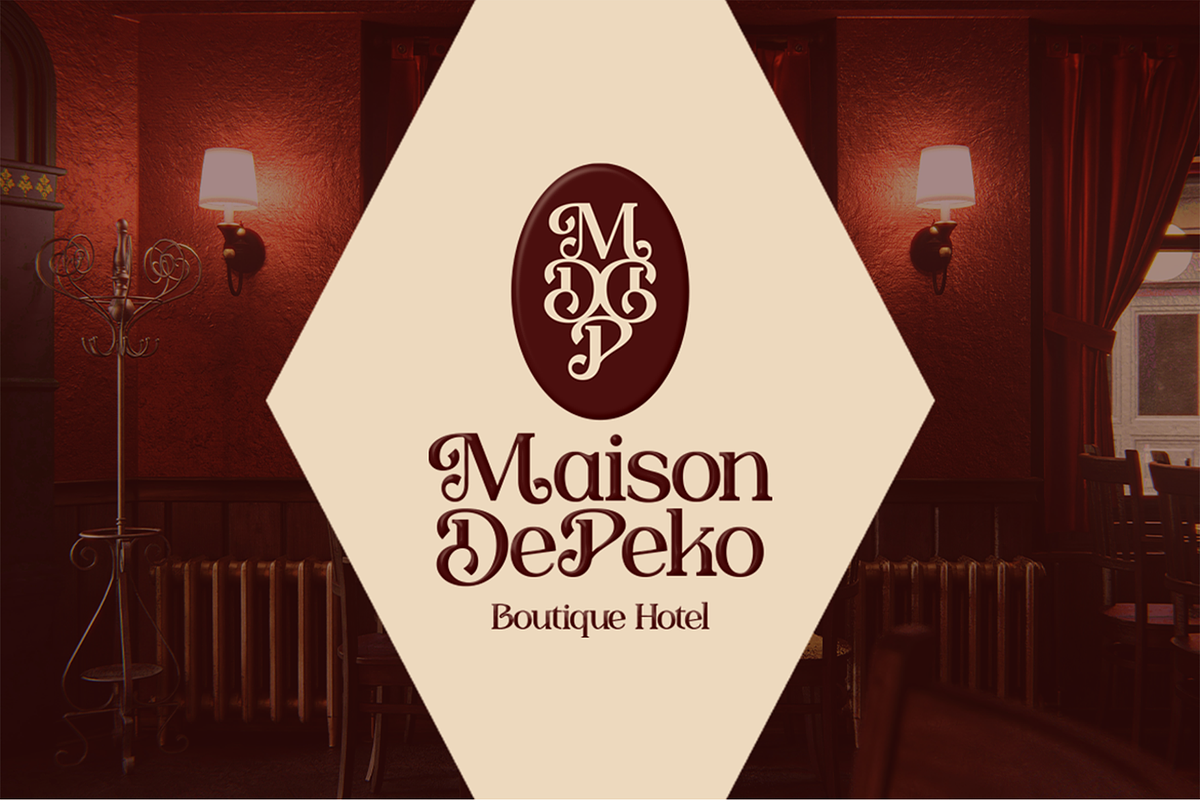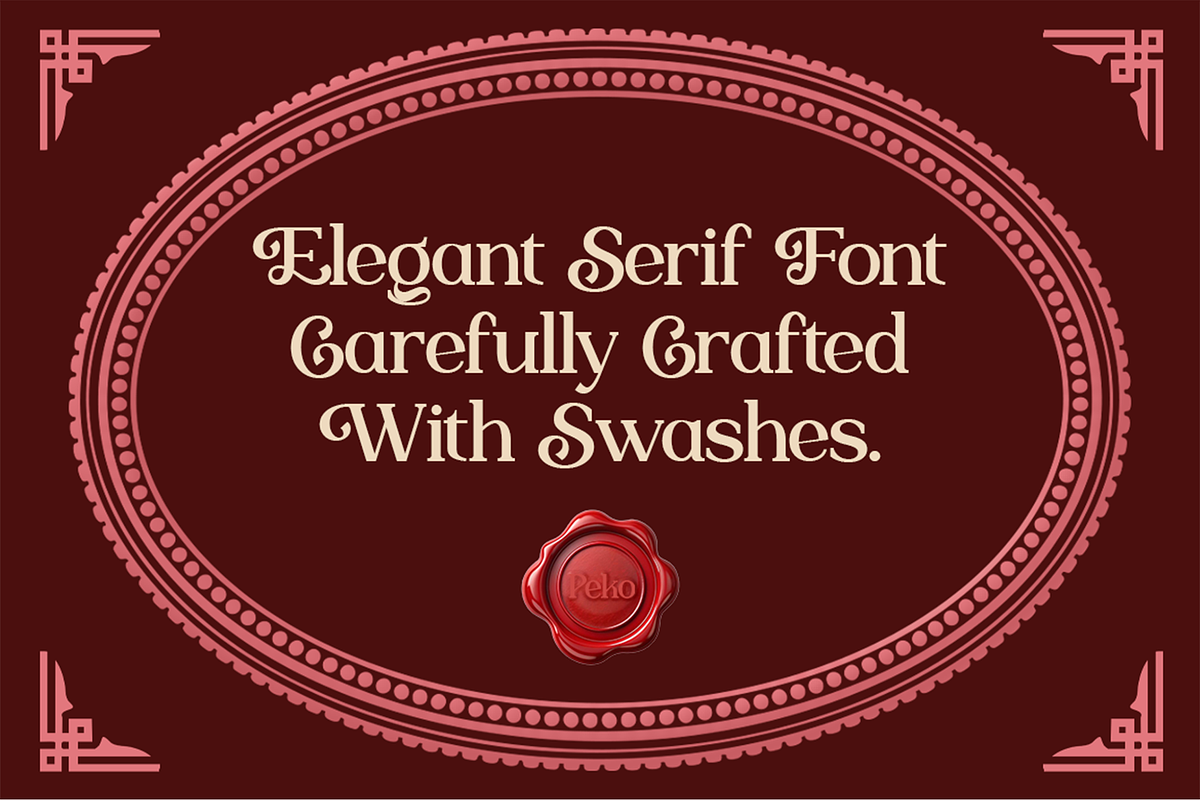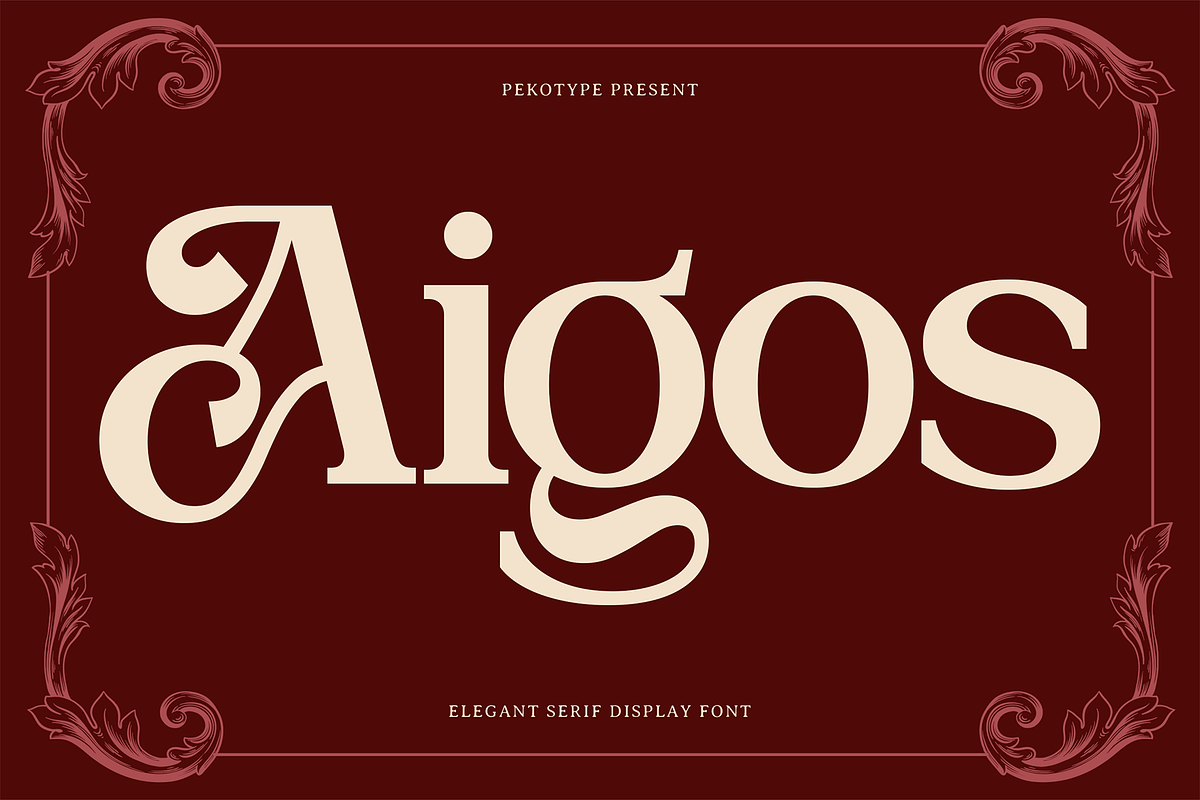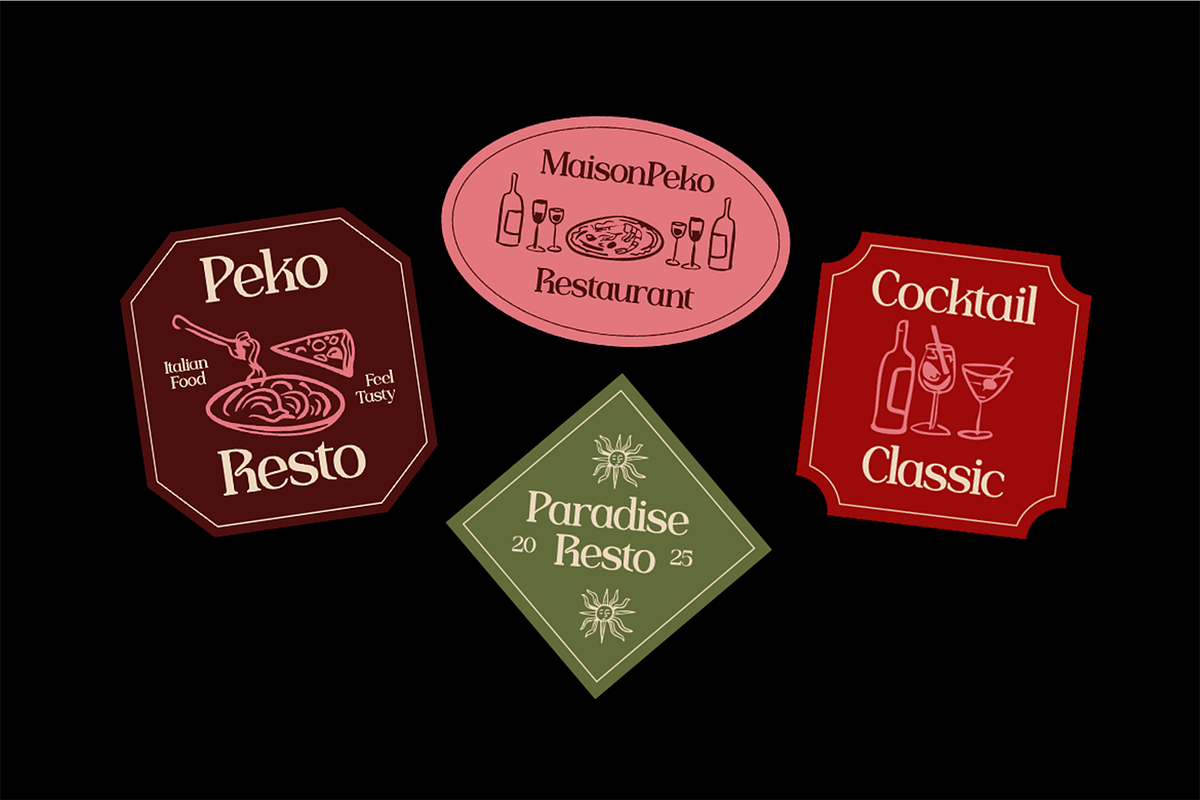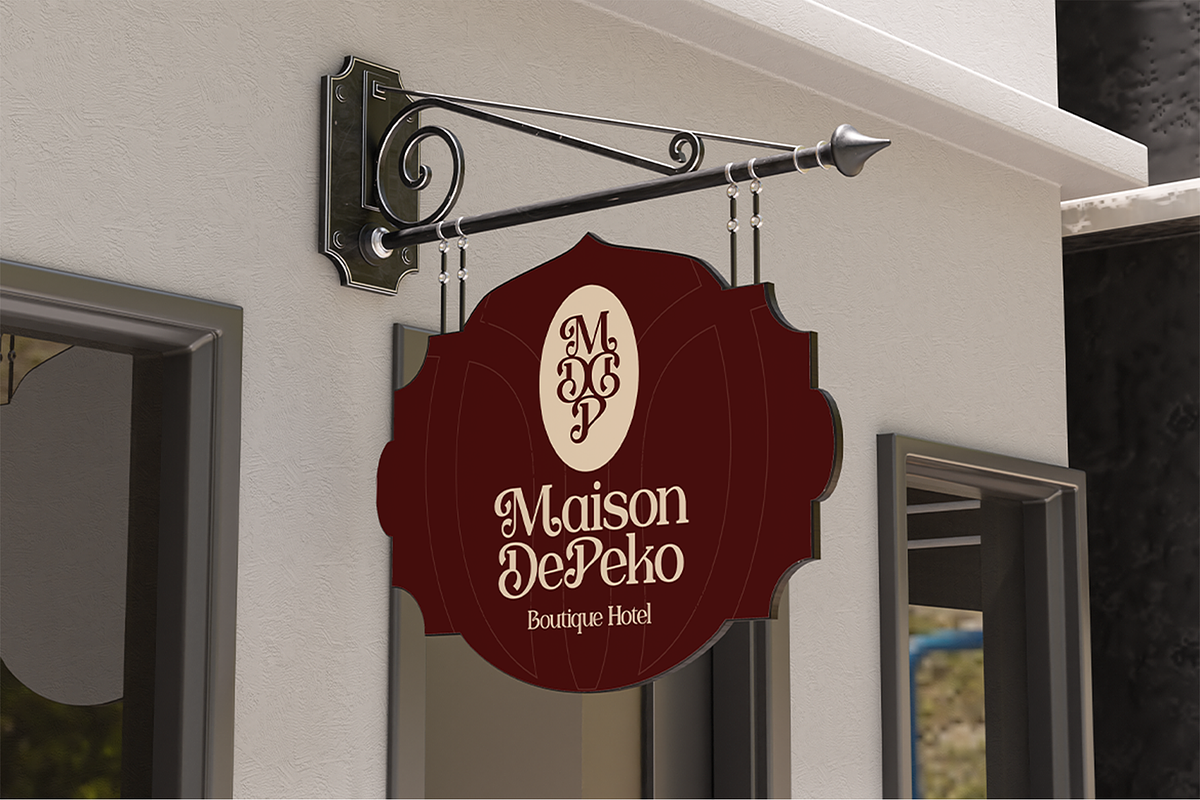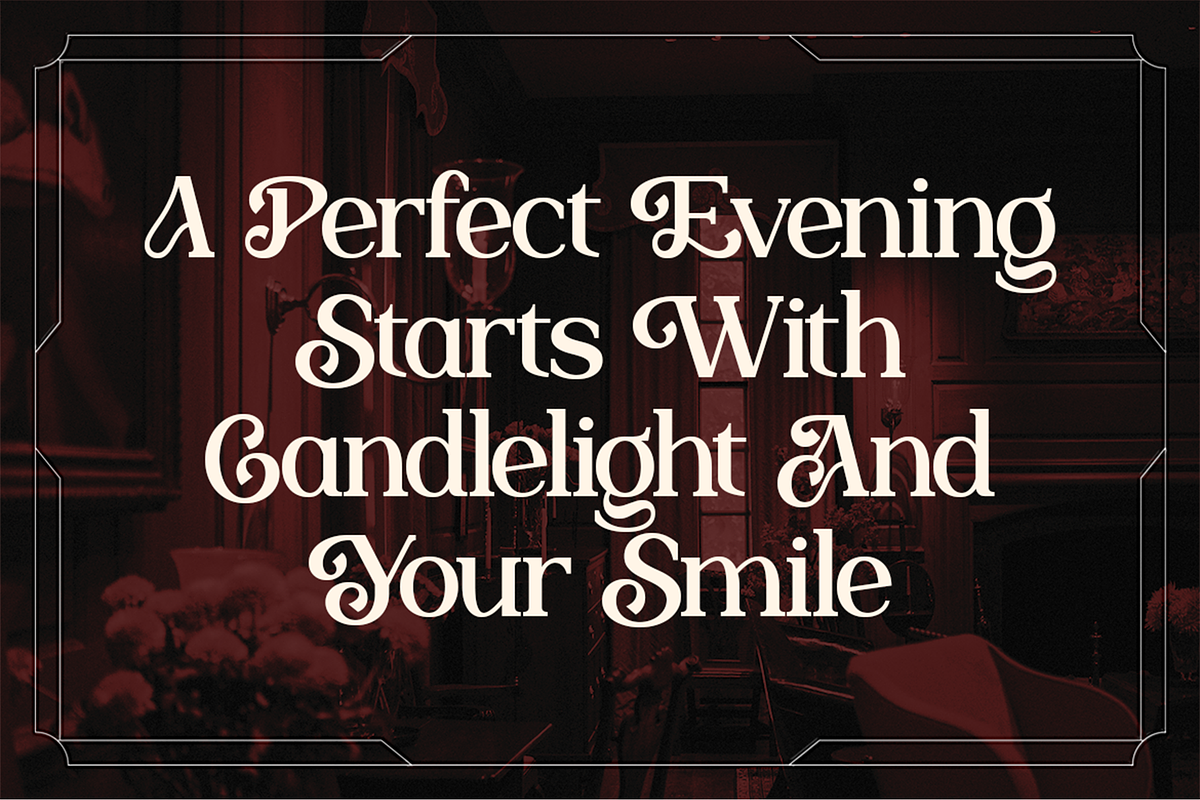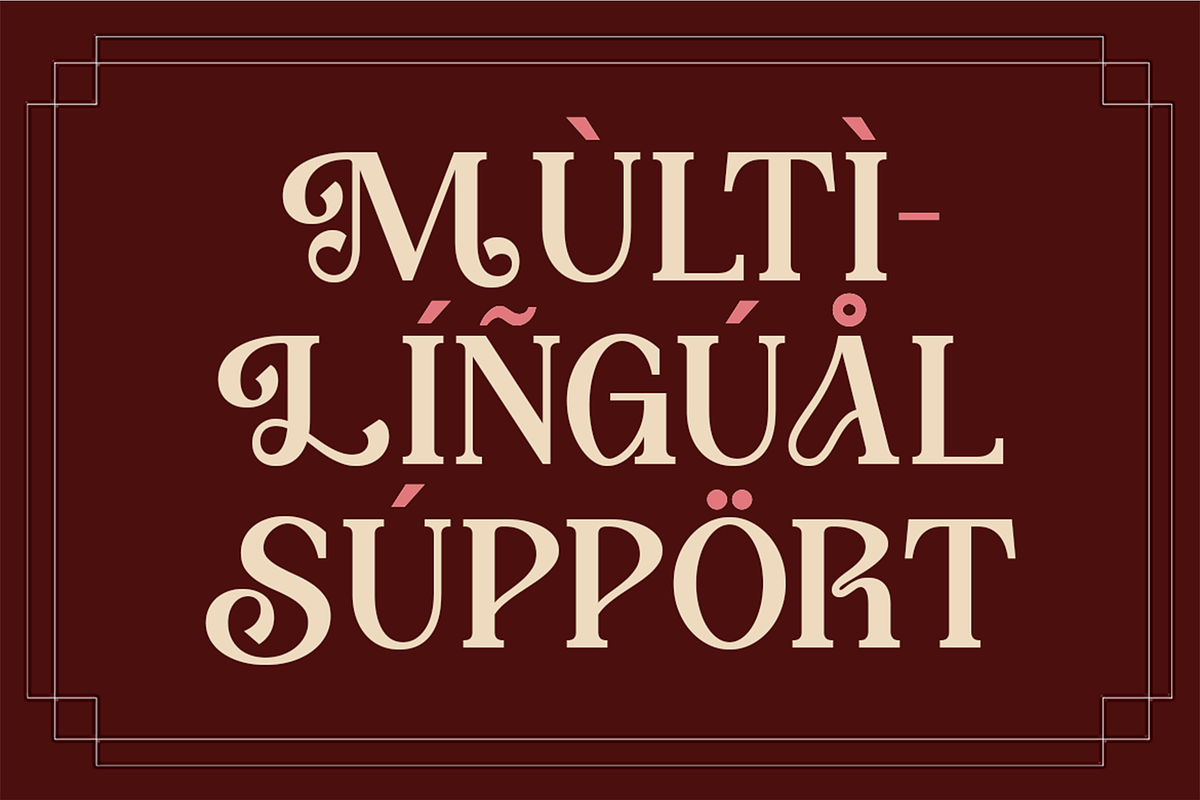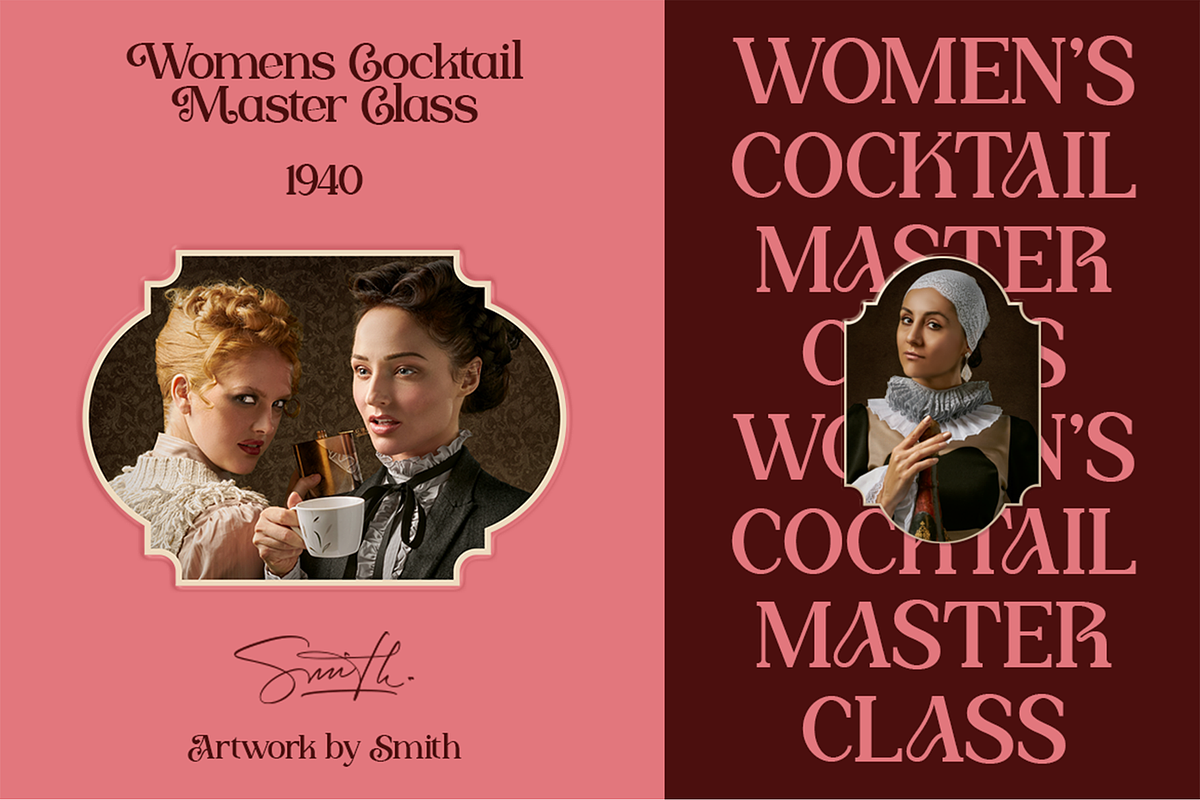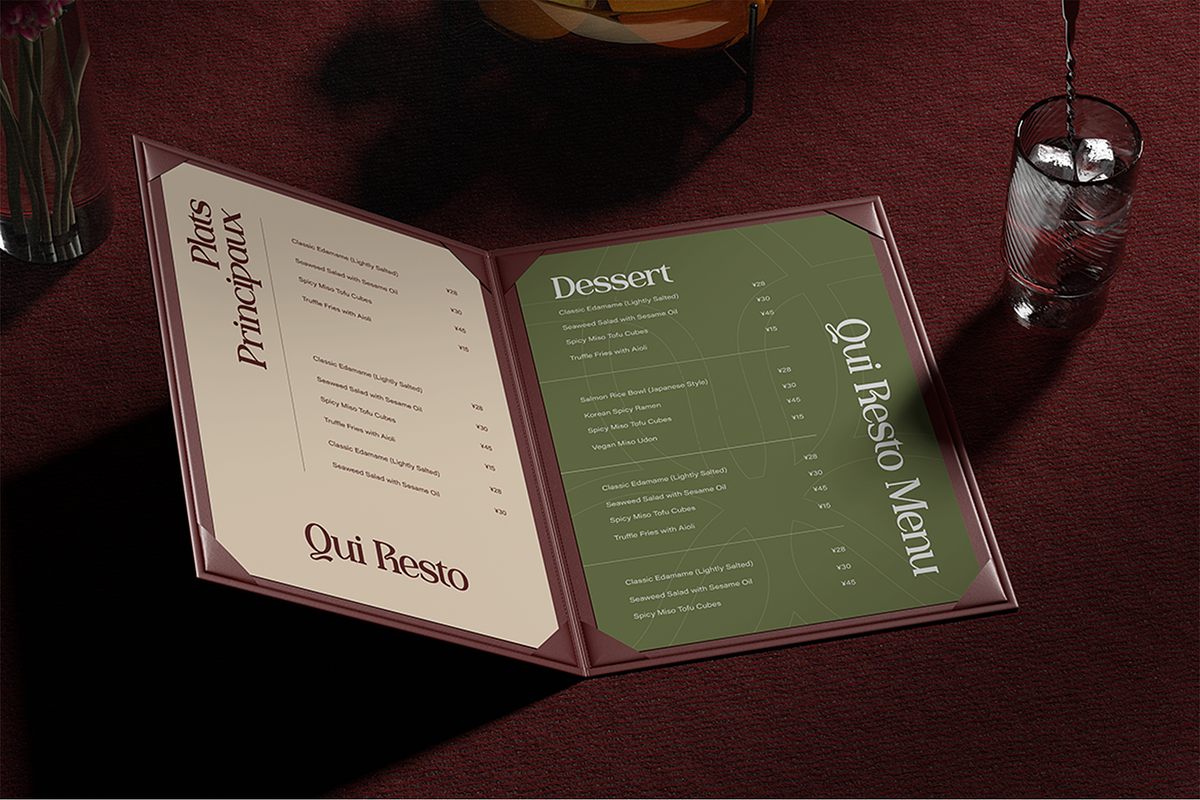
Aigos - Elegant Serif Display Font
AIGOS – Elegant Serif Display Font with Stylish Swashes
Meet Aigos, an elegant serif display font that blends classic sophistication with modern charm. Designed with graceful curves and refined swashes, Aigos adds a touch of luxury to every design. Perfect for branding, logos, invitations, packaging, menus, editorials, and social media graphics, this font elevates your work with timeless beauty and high-end appeal.
Aigos comes with uppercase & lowercase letters, multilingual support, and beautifully designed alternates for an exquisite finish. Whether you’re creating for a boutique brand or a fine dining restaurant, Aigos brings your visuals to life with class and elegance.
- Number, Symbol, & Punctuation